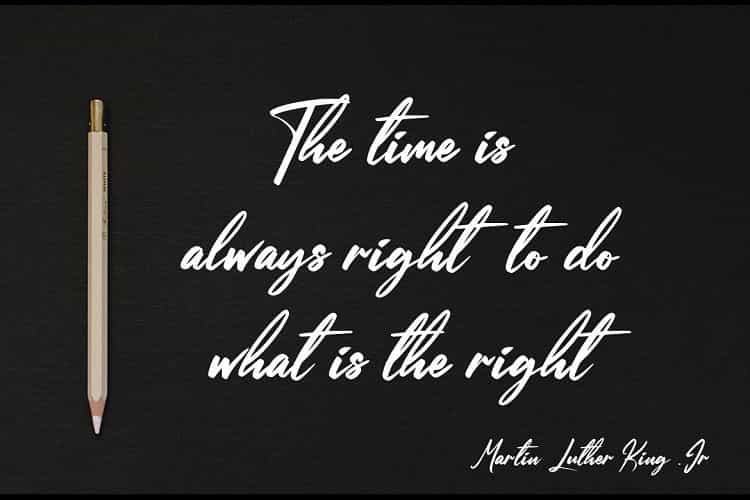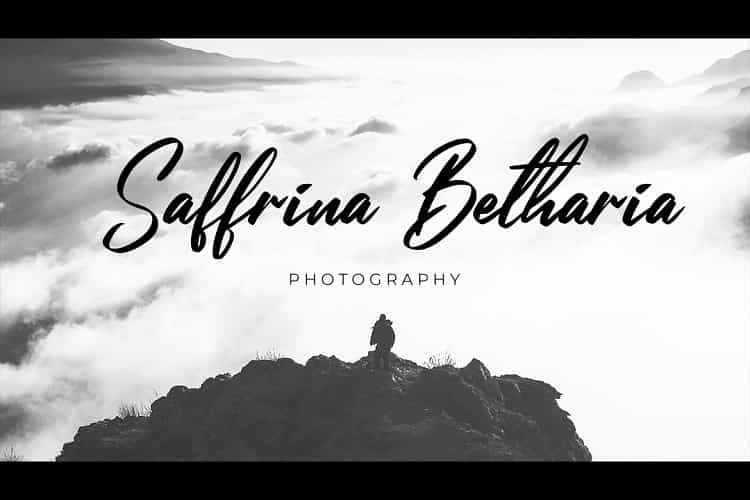
Discover Evallia Signature Font, part of the Calligraphy Handwritten collection—a versatile and unique font perfect for adding a personal touch to your projects. Download it for free and enjoy crafting designs with style, from invitations to social media posts. This font is available exclusively for personal use, giving you the freedom to create without limits. Unlock your creativity with Evallia Signature Font today!
Introducing Evallia Font which is designed and shared by Abraham Type. Evallia Signature Font created from naturally handwritten, it will make your design more beautiful and fashionable. suitable use for market design developed at this time, this font has a model Trendy, natural and gentle, with this font you can take advantage of the opportunity in the world of trend for the design of today’s society.